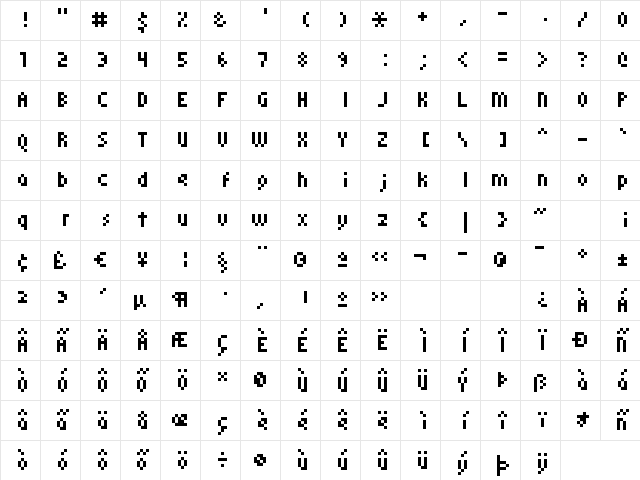
monoeger 05_55 Regular
Design Context for monoeger 05_55 Typeface
monoeger 05_55 brings the precise, column-aligned rhythm of monospaced typography to designs that value technical clarity and systematic order.
Pro Tip: Pair monoeger 05_55 with a proportional sans for UI contexts where code-style labels and regular body copy need to coexist.